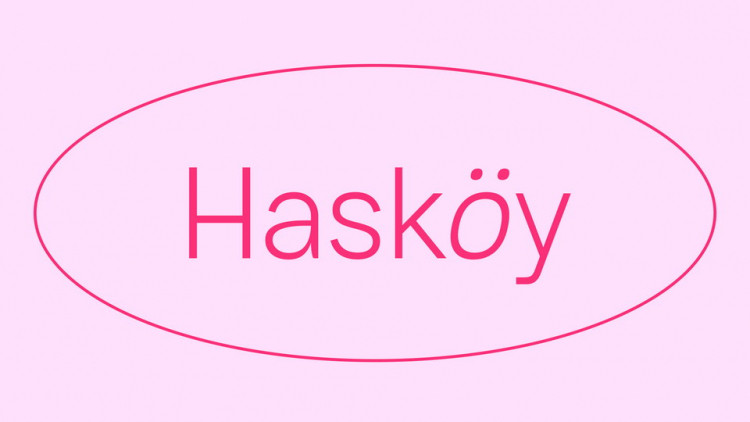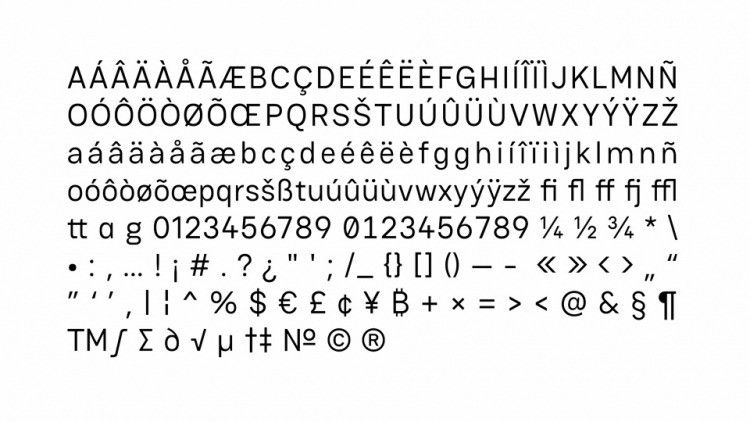
Hasköy Sans Serif Font
This is a never die font family that will be needed now and forever on many occasions or any other display works. Designed with powerful OpenType features and each weight includes Latin-extended language support, stylistic alternates, fractions, tabular figures, arrows and more.
Currently, the family includes Latin, Vietnamese, Pinyin, and all Western, Central, and South-Eastern European language support.